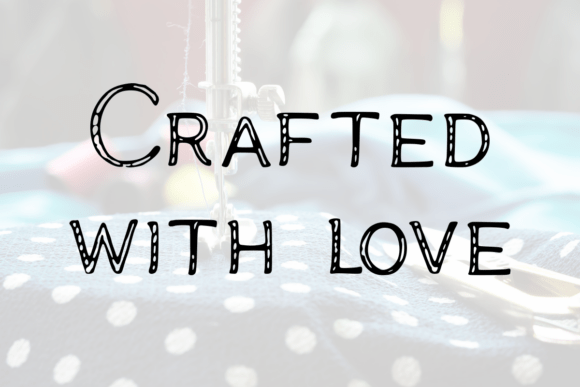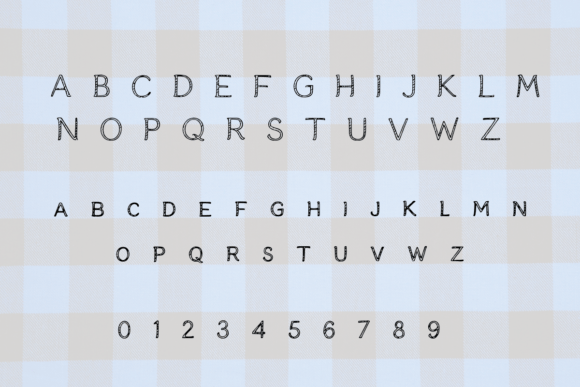
Introduction to Moonstitch Font Font
Fonts play a crucial role in design, and the Moonstitch Font font is a typeface that brings both character and versatility to any project. Whether you’re working on a branding project, a website, or a print design, the Moonstitch Font font offers a unique style that can elevate your work.
Moonstitch is a charming stitched-style font that brings a cozy, handmade feel to your creative projects.
With playful lettering and a crafty texture, itβs perfect for sewing-themed designs, scrapbooking, childrenβs projects, or anything that needs a touch of warmth and whimsy Whether you’re designing for a nursery, DIY blog, or seasonal crafts, Moonstitch adds a delightful, homey aesthetic.
Key Features of Moonstitch Font Font
Why Choose Moonstitch Font Font?
The Moonstitch Font font is more than just a typeface β it’s a design tool that helps you communicate your message with style and clarity. Its unique character set and versatile design make it suitable for a wide range of applications, from elegant invitations to bold headlines.
With its carefully crafted letterforms and balanced proportions, the Moonstitch Font font ensures readability and visual appeal across all mediums.
What makes Moonstitch Font font special?
The Moonstitch Font font stands out with its unique design, exceptional readability, and versatility across various design applications.